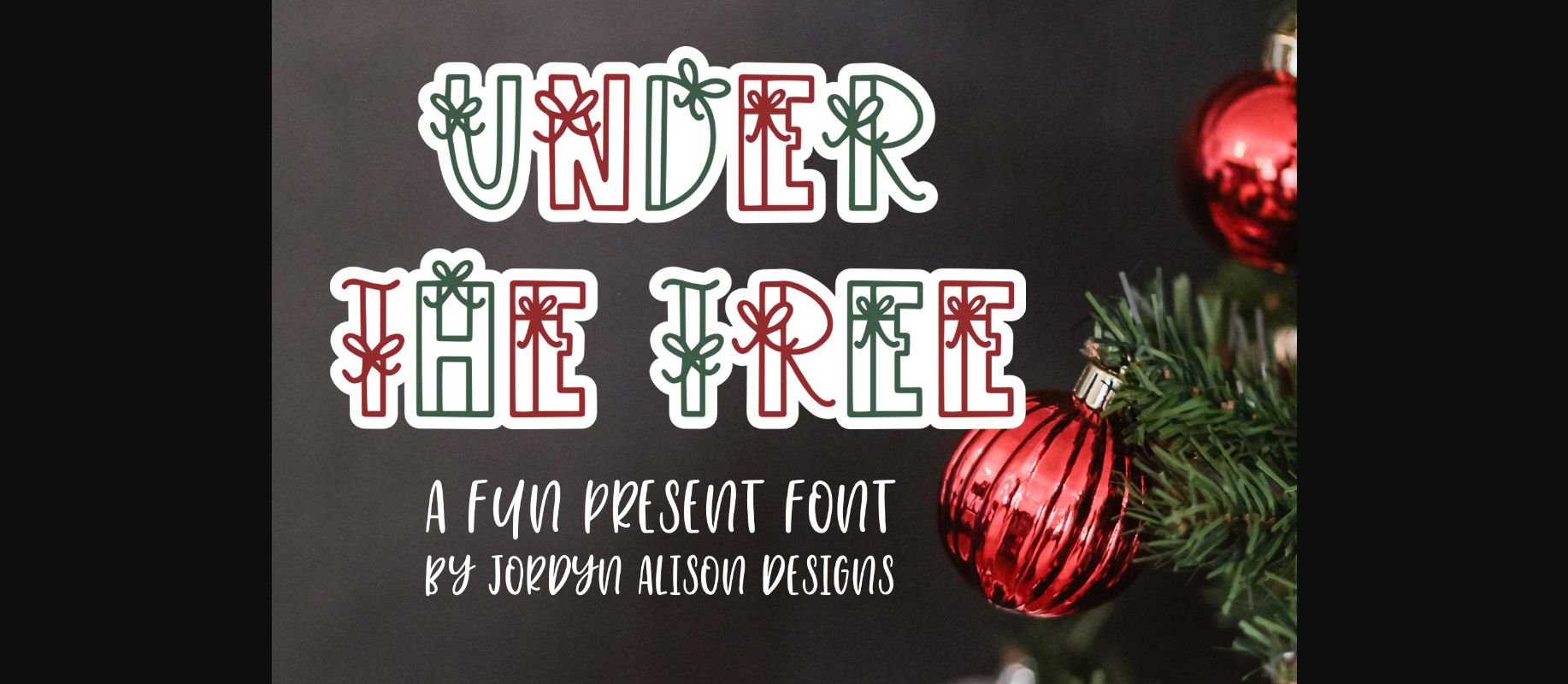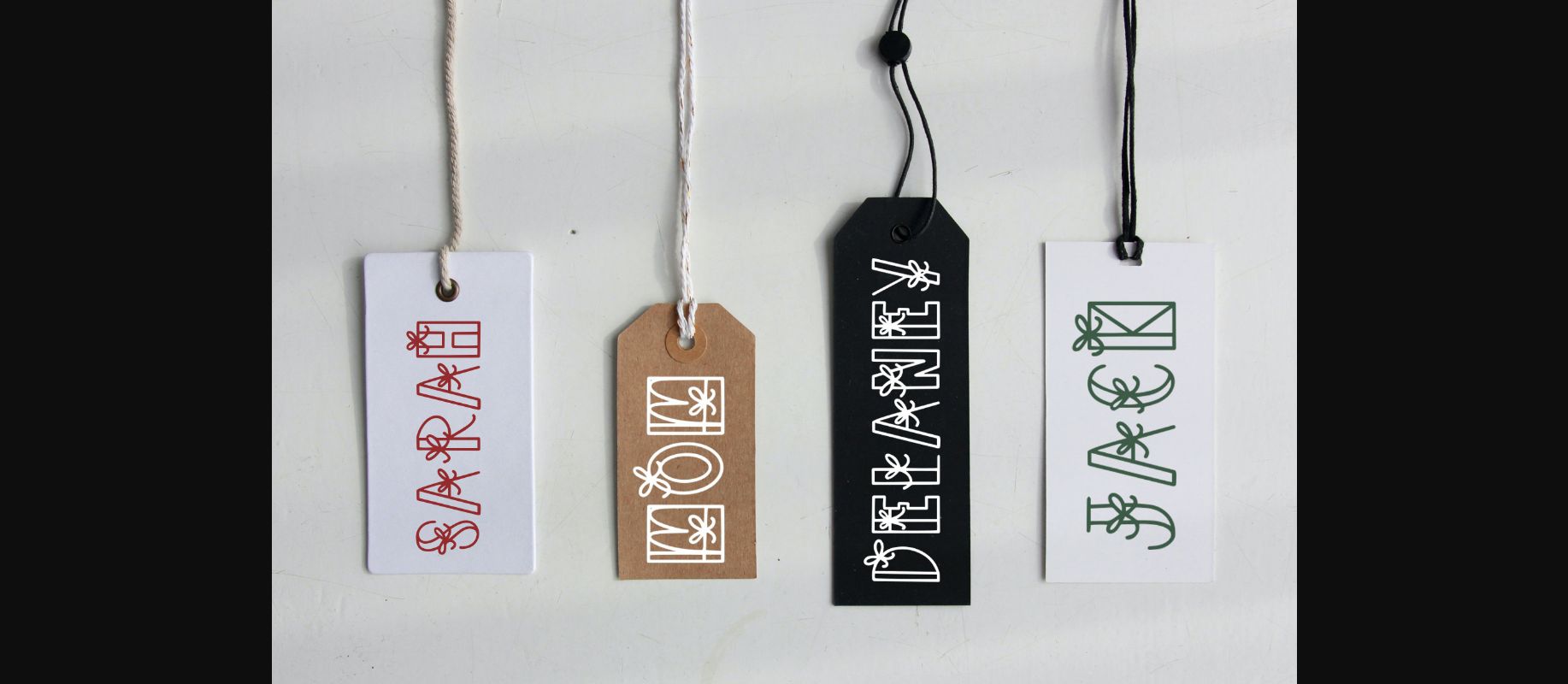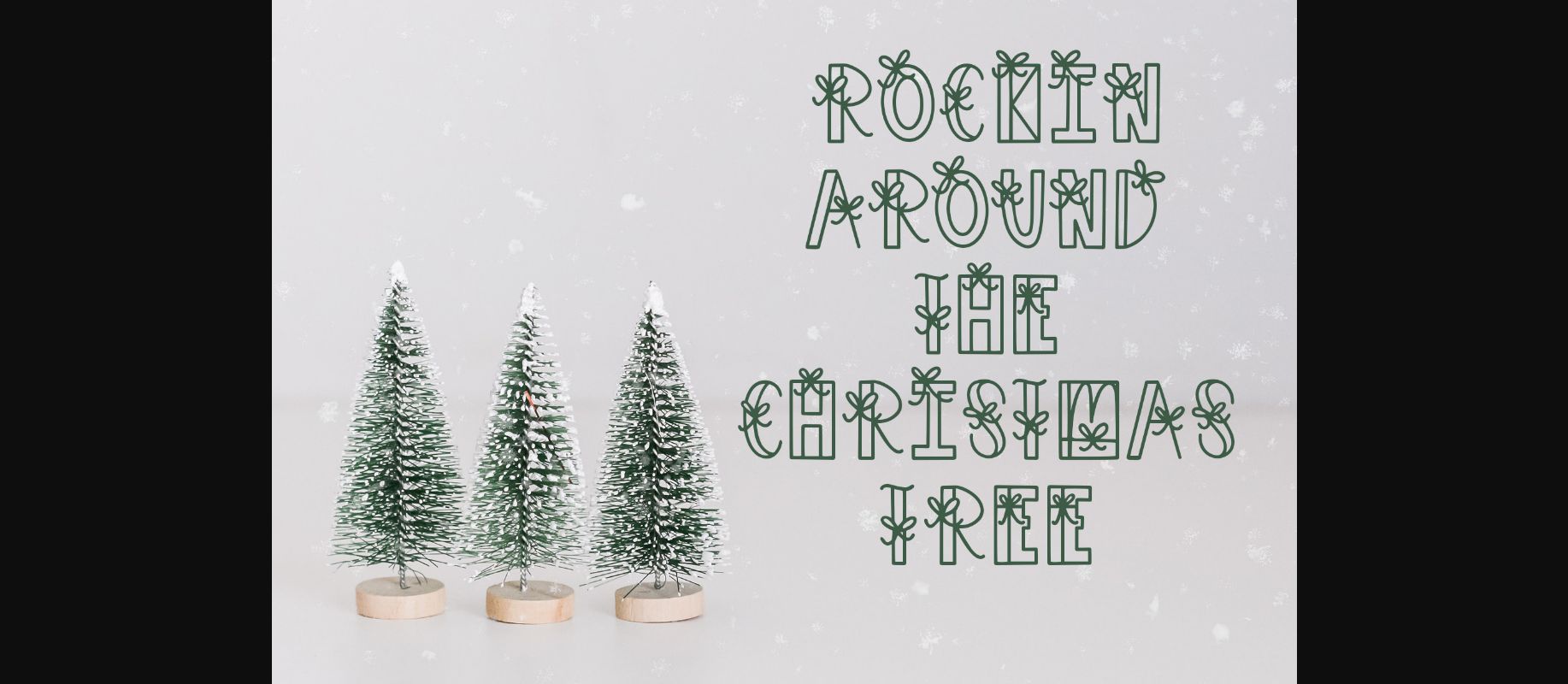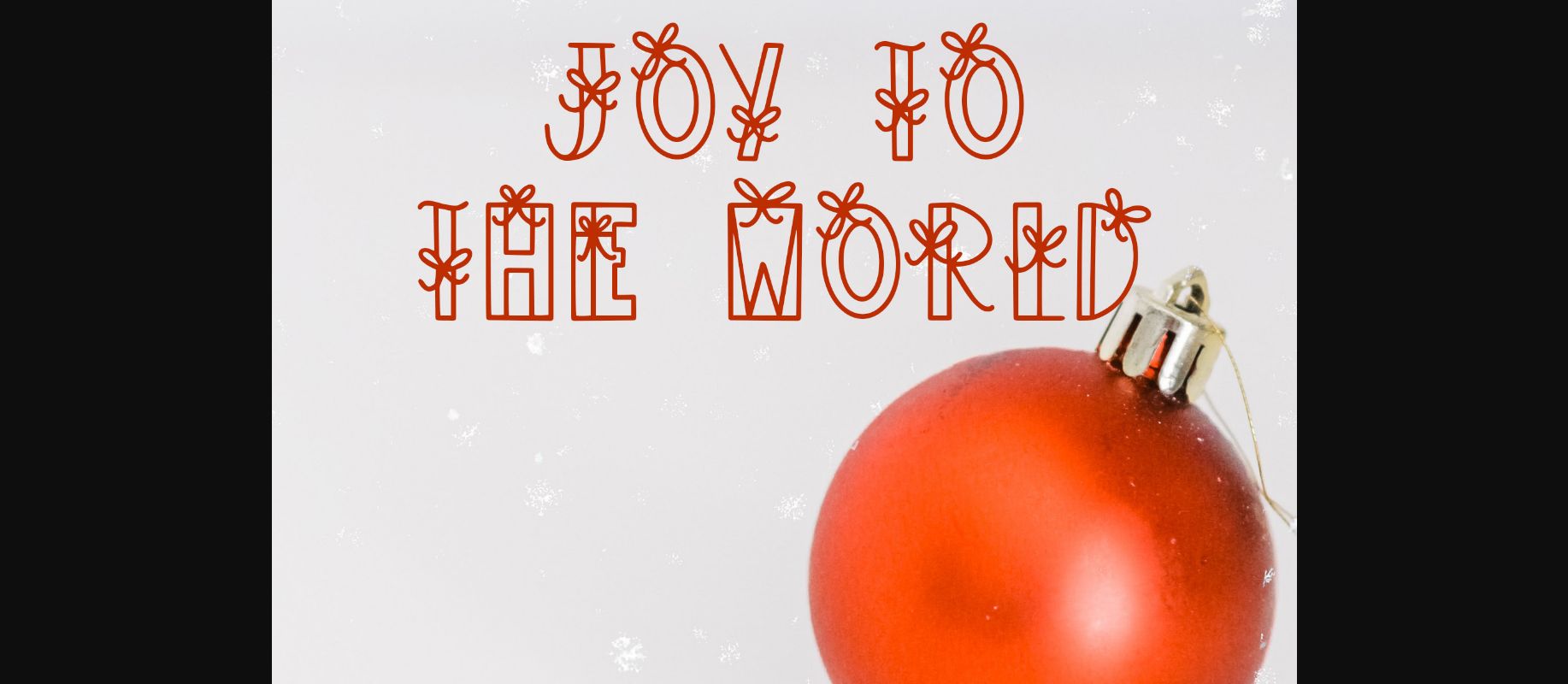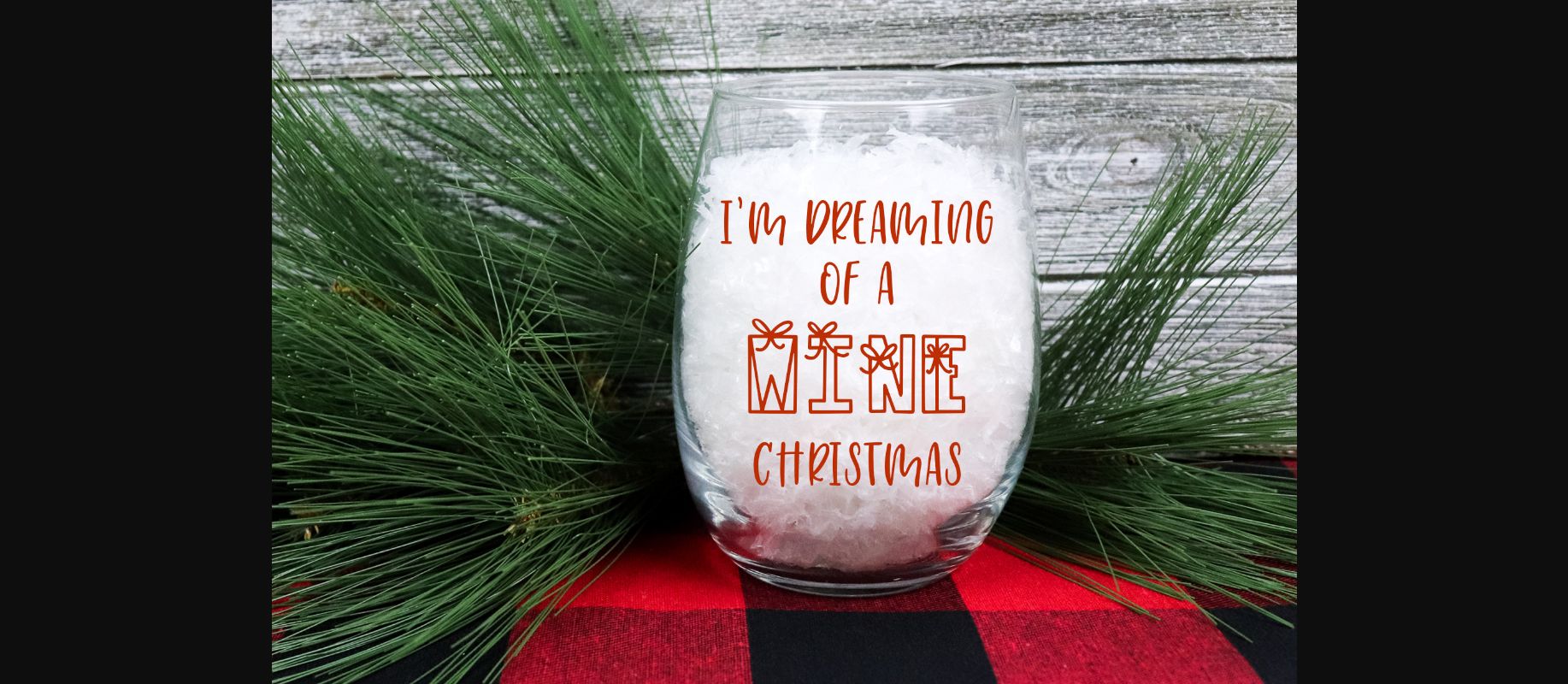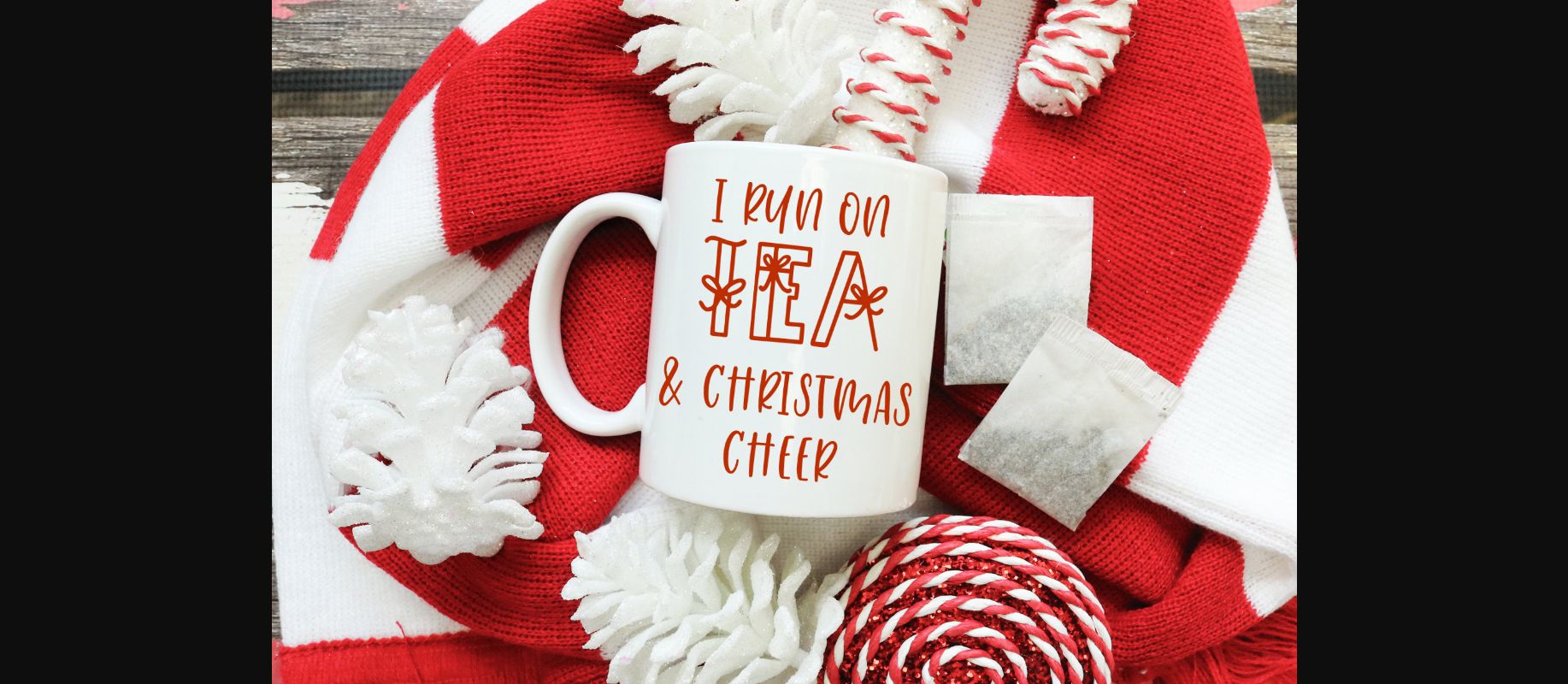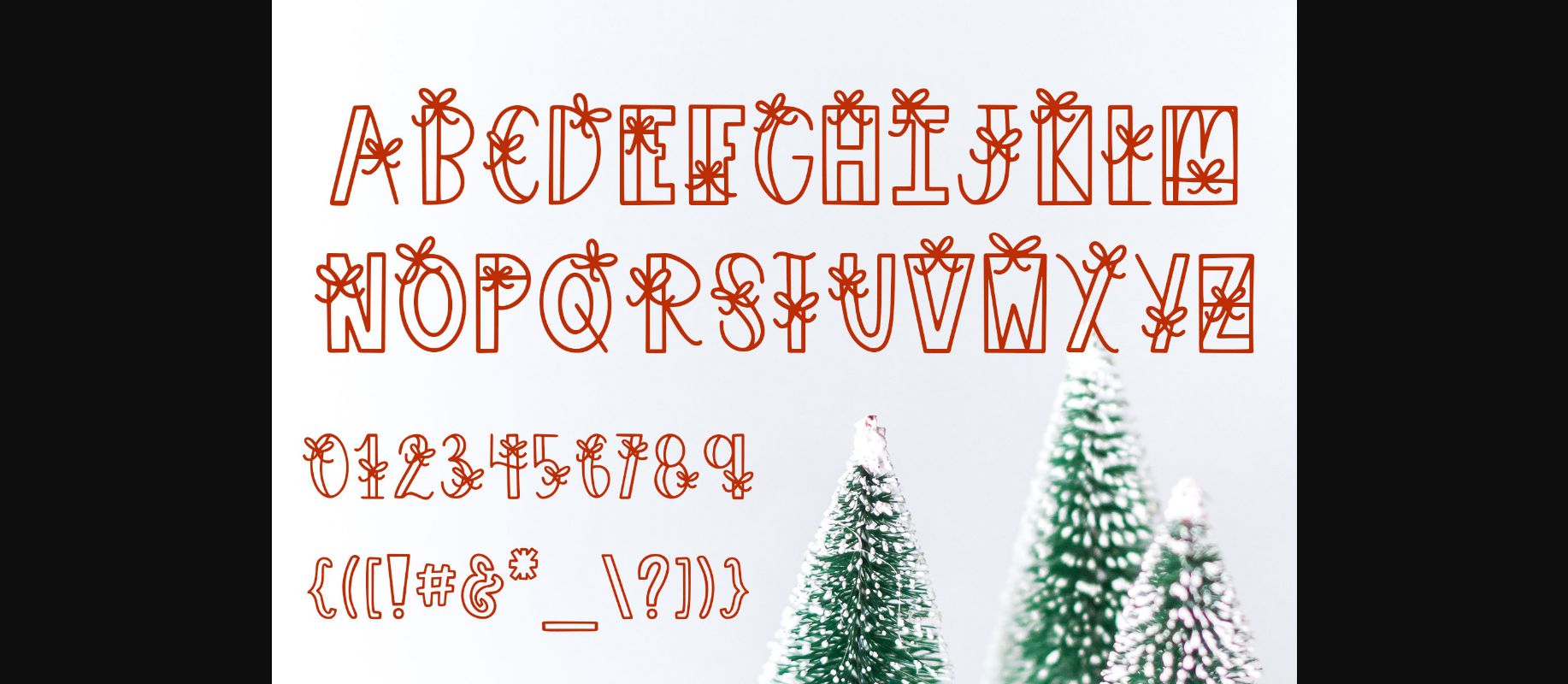
Under The Tree, a festive Christmas Presents font. Under the Tree is a fun Christmas Font that you can use with Cricut, Silhouette, or even Word to print out and use for Christmas gift tags.